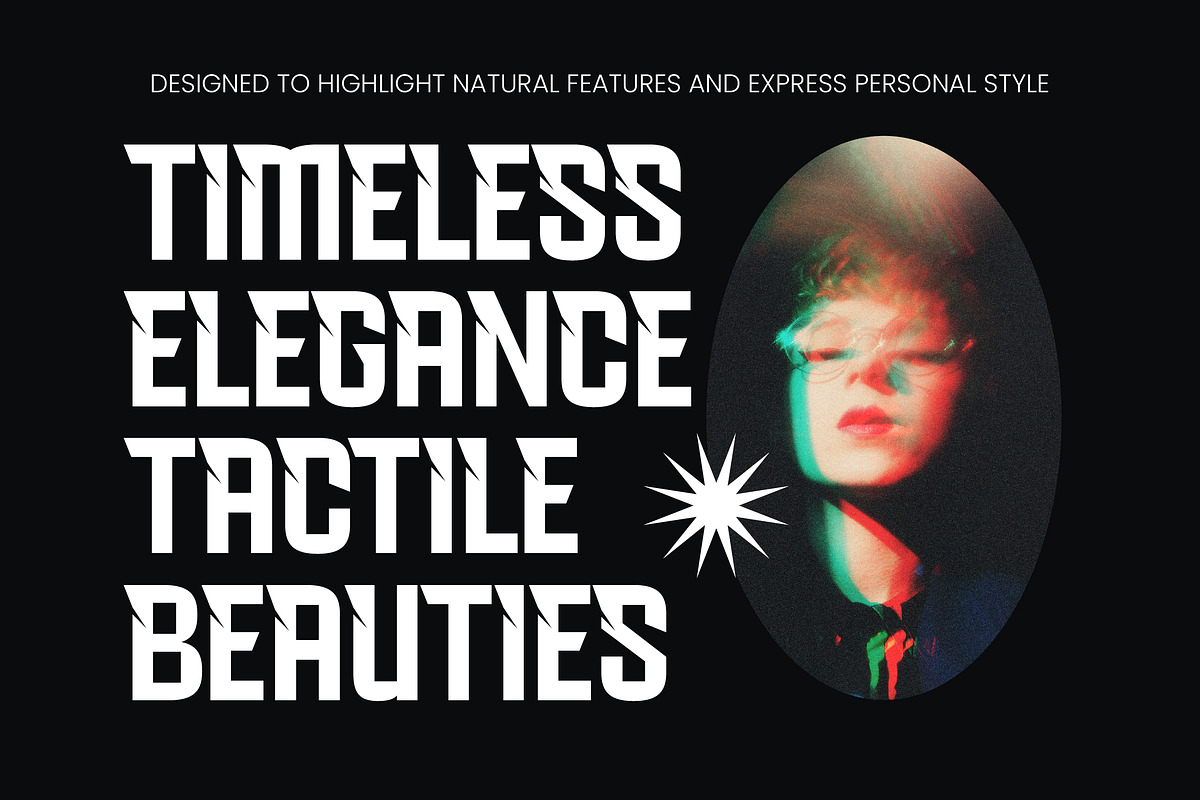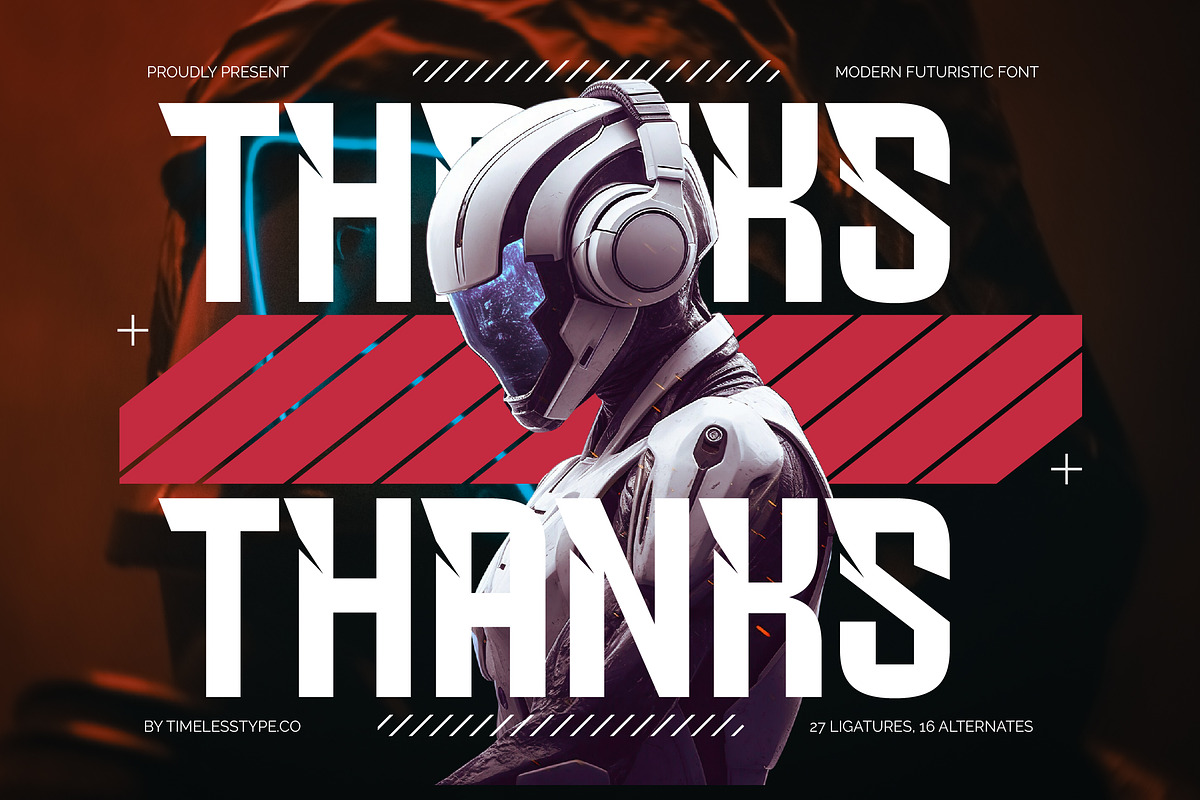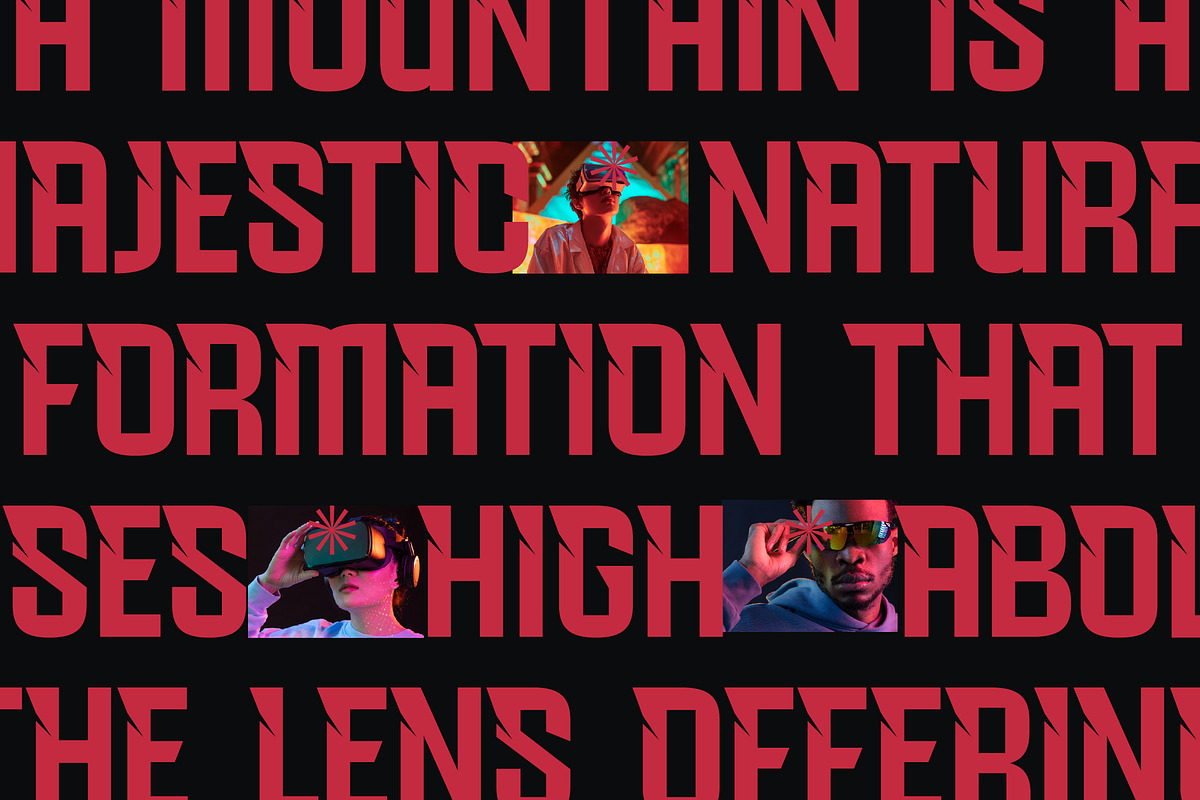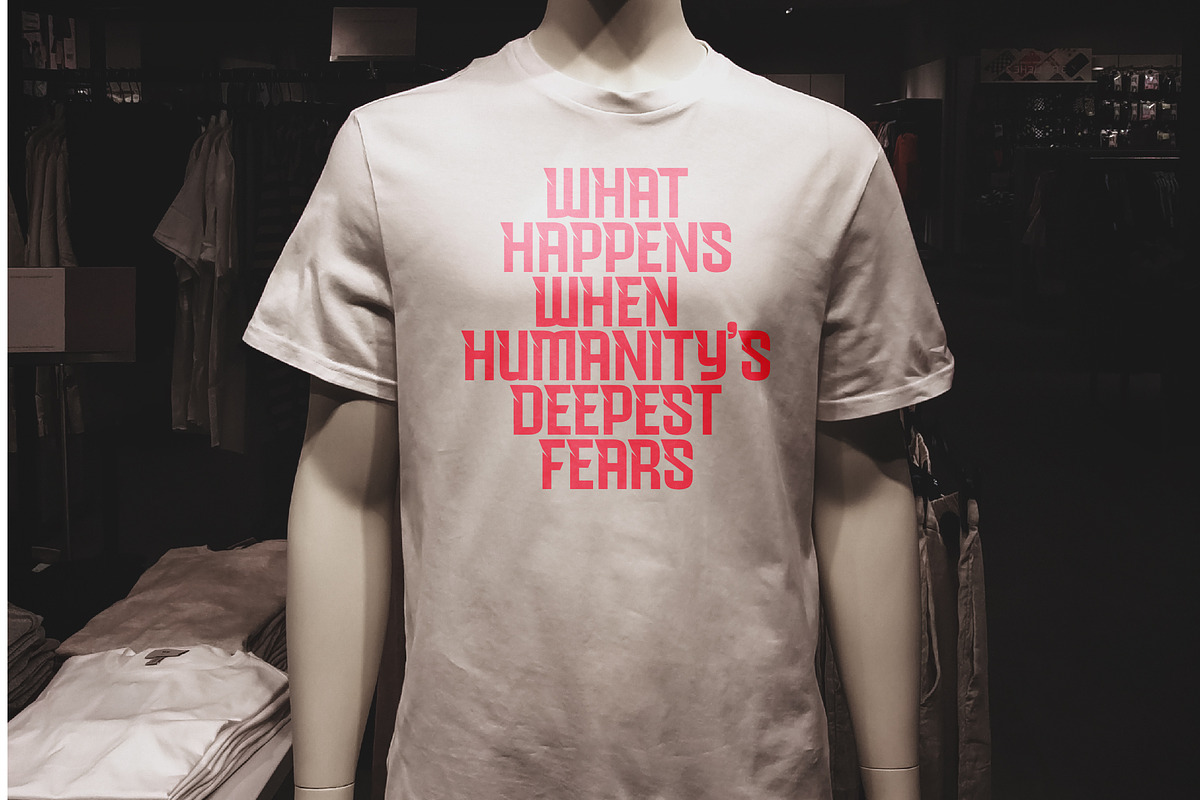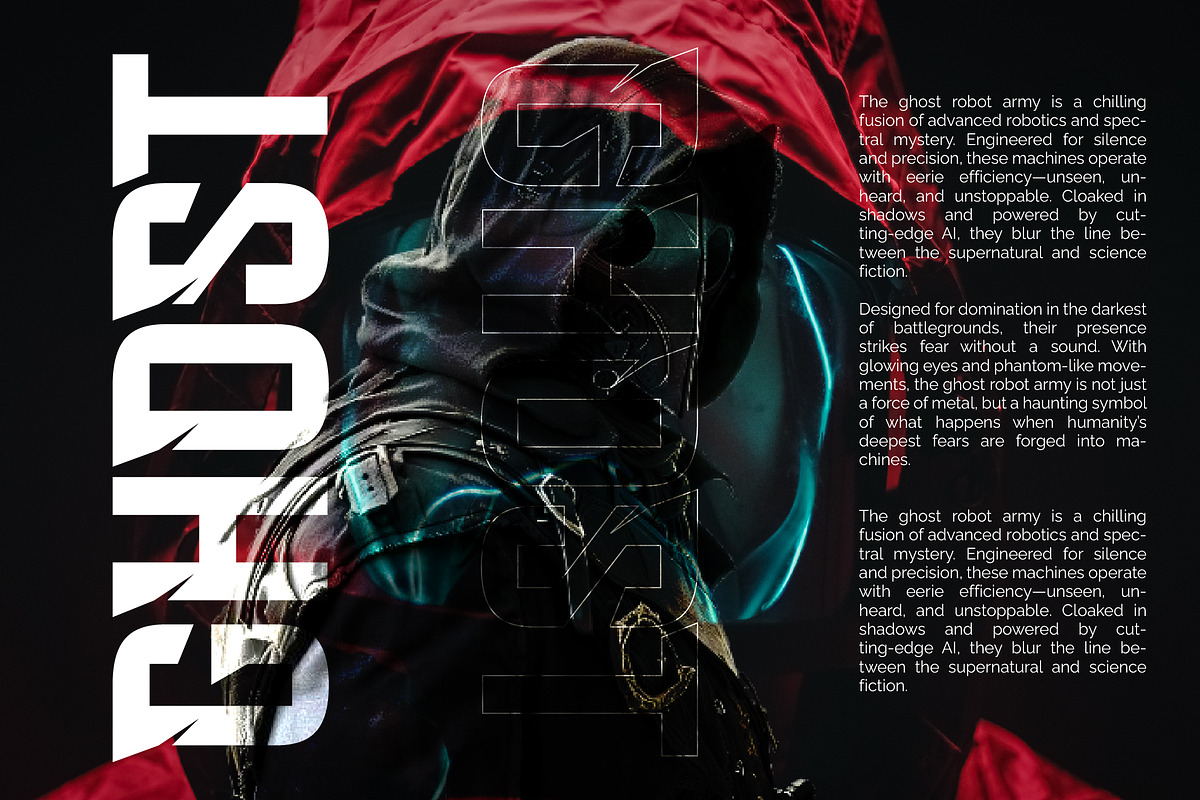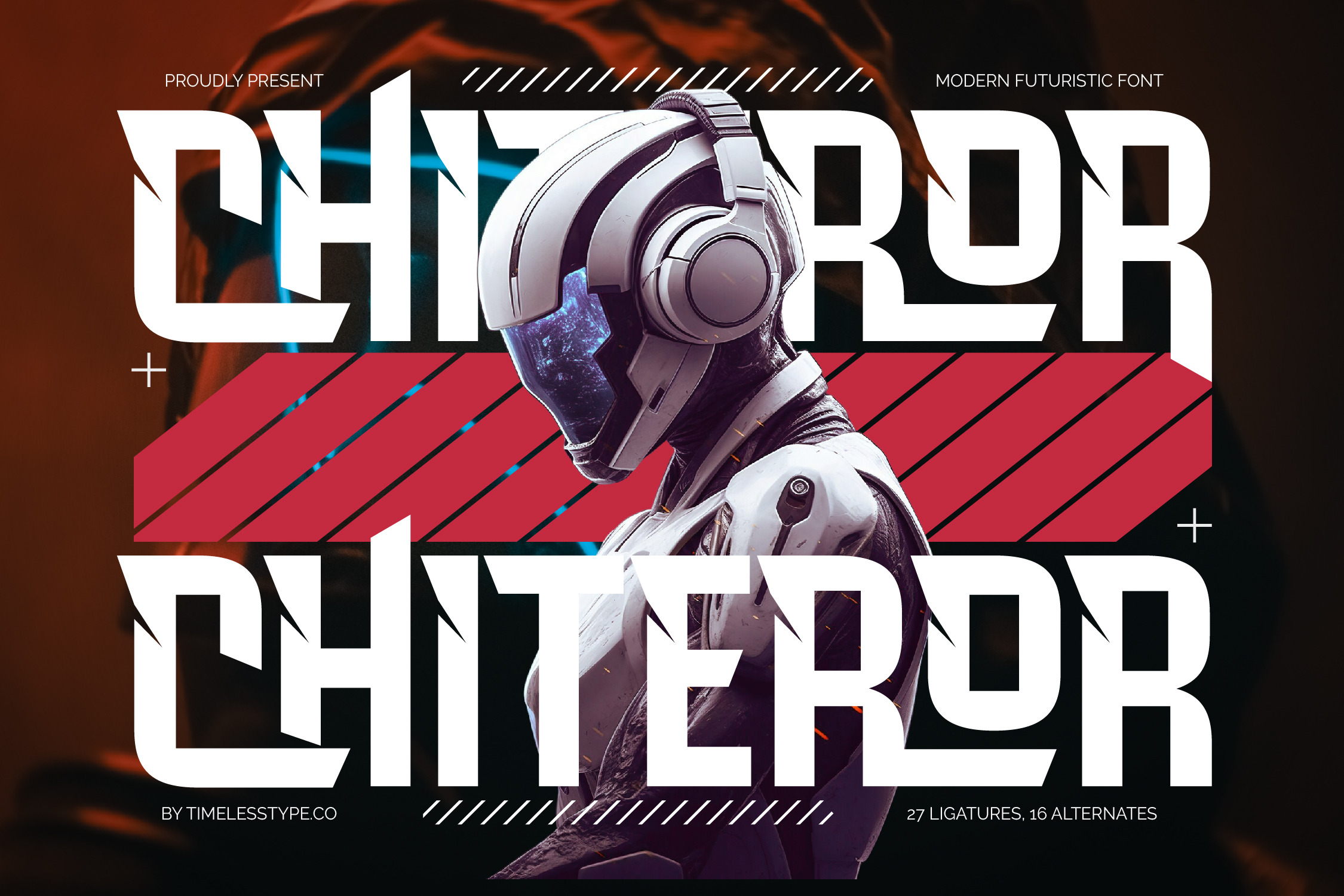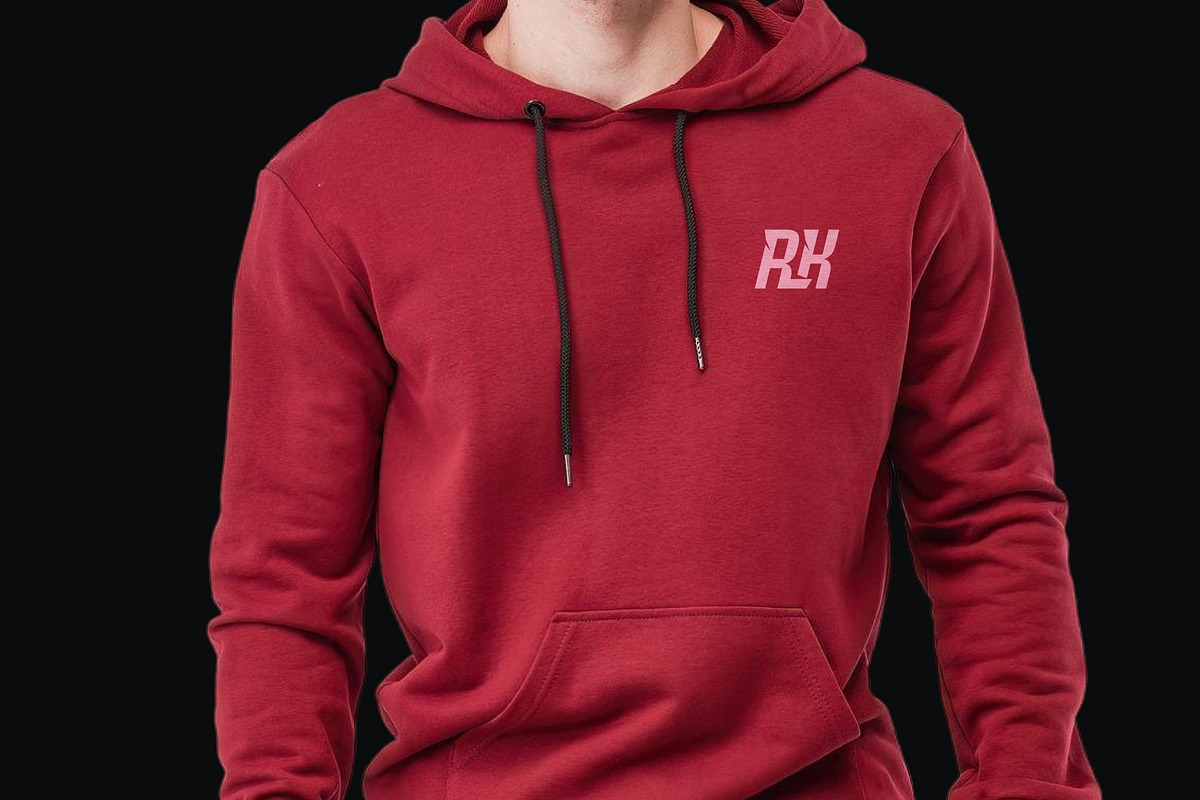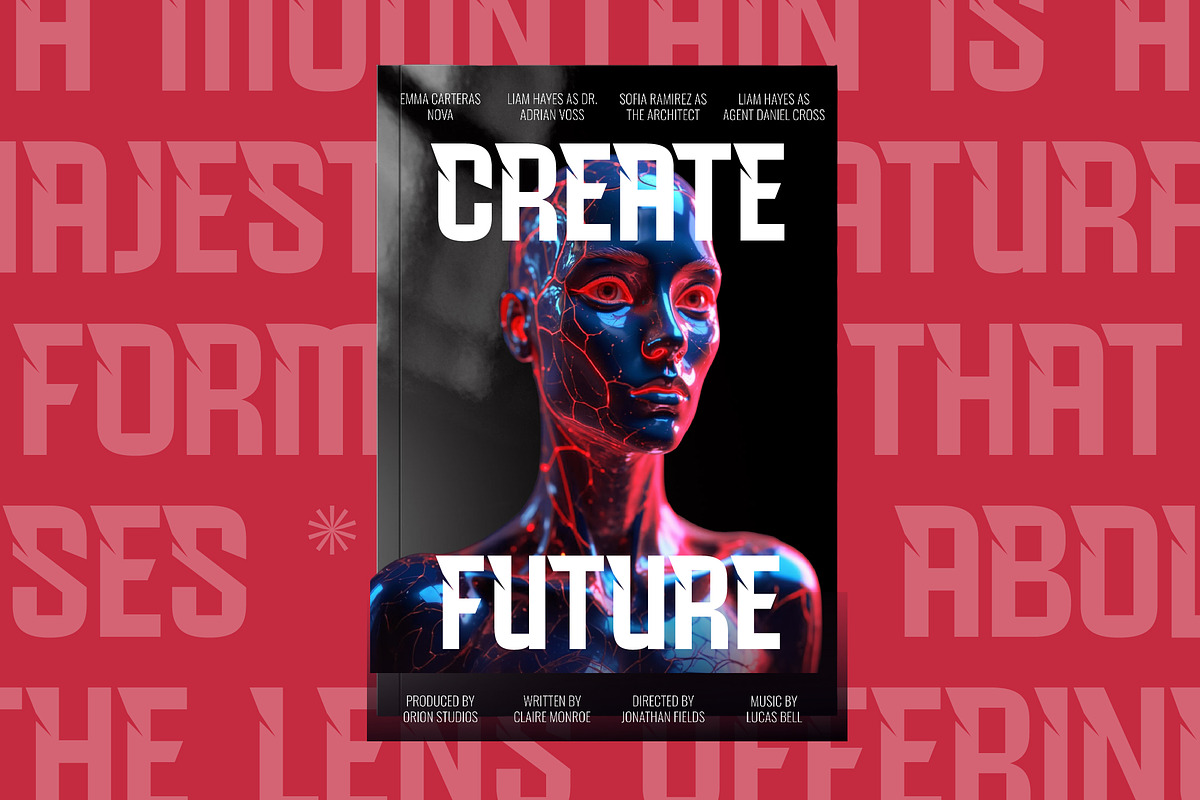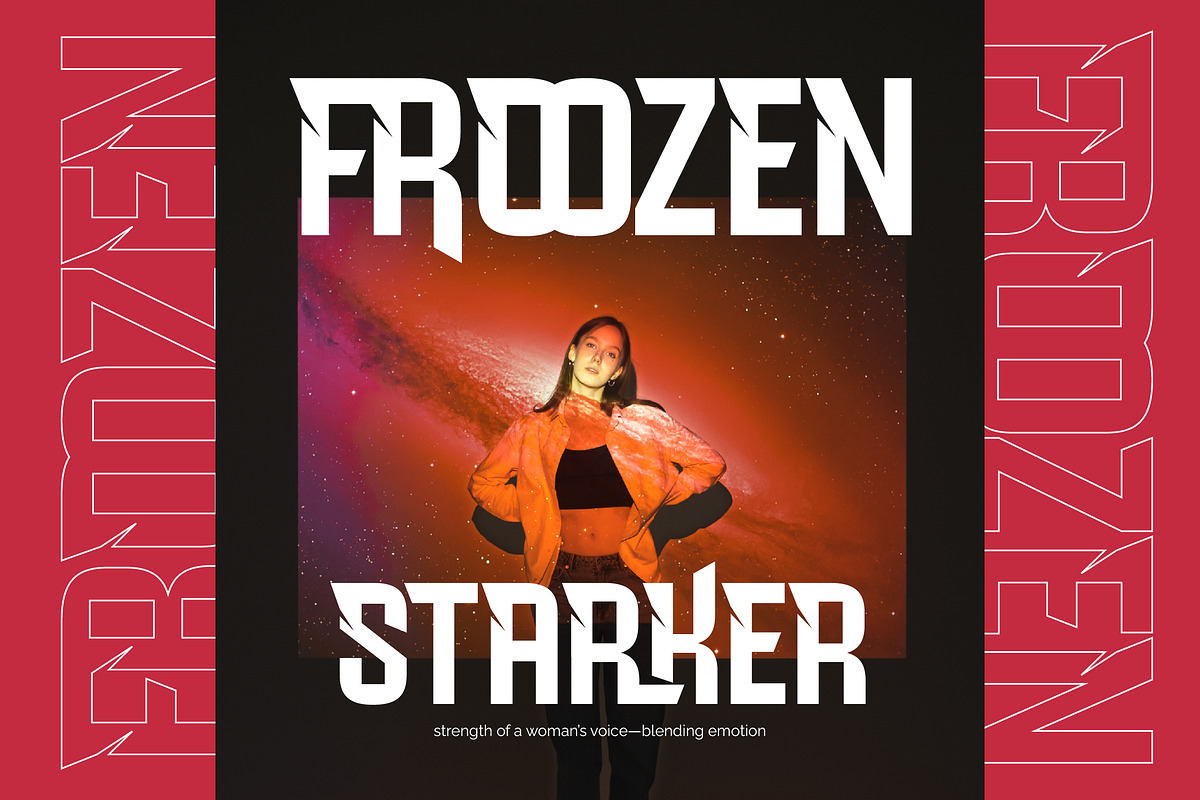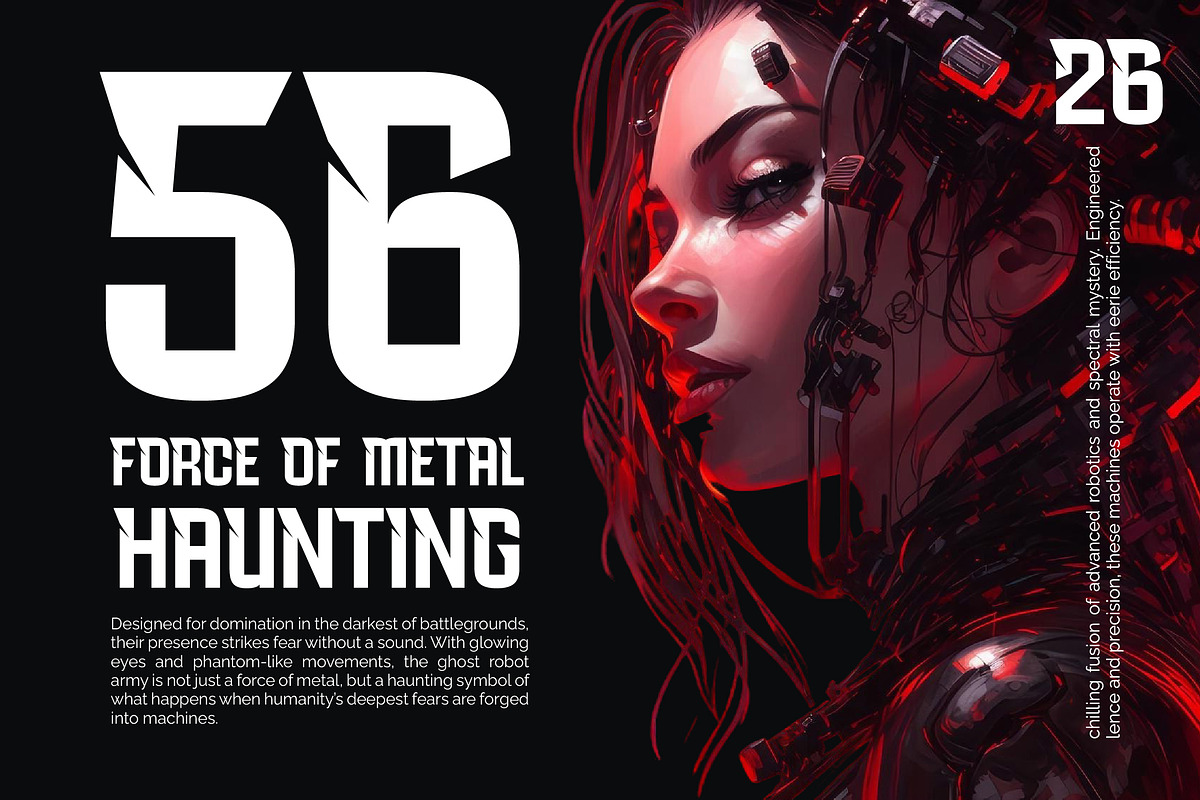
Chiteror Futuristic Display Font
Chiteror is a high-octane visual experience that commands immediate attention with its razor-sharp edges and futuristic silhouette. It is the definitive choice for designers looking to push the boundaries of digital aesthetics and modern branding.
Inspired by the neon-drenched landscapes of cyberpunk cities and the sleek machinery of advanced robotics, this typeface captures a sense of velocity and precision. Its architecture feels like it was forged in a high-tech lab, designed to resonate with the speed and intensity of the digital age.
Delivering a powerful branding impact, this typeface functions as a modern serif display that redefines what luxury typography can be in a tech-driven world. While it departs from traditional forms, it maintains the weight of a high-contrast serif and the sophisticated presence of a premium editorial font for elite projects.
As designers move toward bold, expressive shapes, Chiteror fits perfectly within the character-driven typography movement that is currently dominating the modern serif trend. It offers a fresh alternative to standard editorial display fonts, providing a unique visual language that speaks to a forward-thinking audience.
This versatile powerhouse is engineered for high-visibility logo design and comprehensive branding systems that need to stand out. It excels in editorial layouts, futuristic packaging, and even adds a sharp edge to avant-garde wedding stationery or high-end fashion lookbooks.
The typeface comes packed with 27 unique ligatures and 16 alternates to provide endless customization options for your creative compositions. It also features comprehensive international characters and full multilingual support, ensuring your message reaches a global audience without losing its swashes or stylistic integrity.
- Ligature 27 Alternate 16